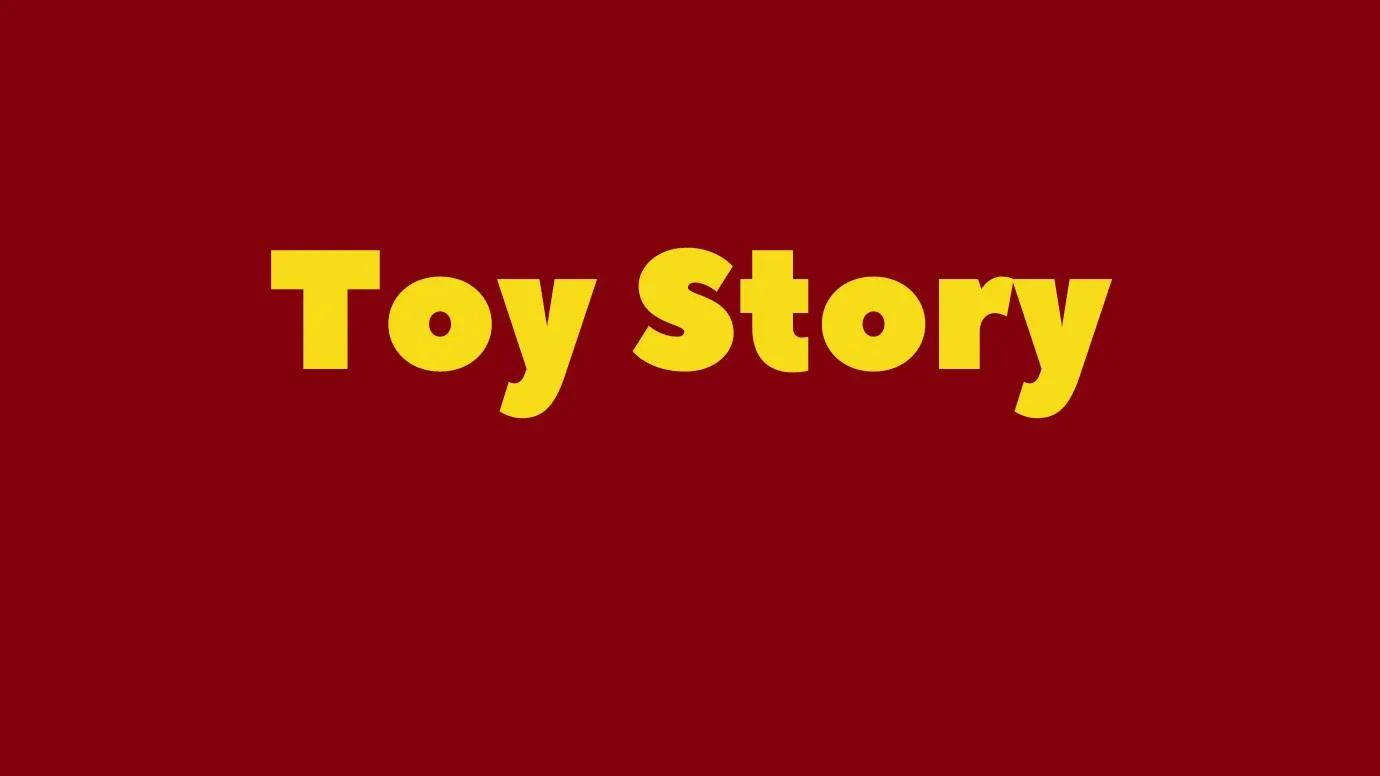
Toy Story Font Family is a well-recognized sans-serif font, gained prominence through its association with the logo of the beloved animated film, Toy Series.
This logo combines two distinct fonts, separating the design elements for “Toy” and “Story.” For the “Story” segment, the typeface employed is Gill Sans Bold, a widely popular member of the Gill Sans font family.
Toy Story Font Family
DesignerEric Gill